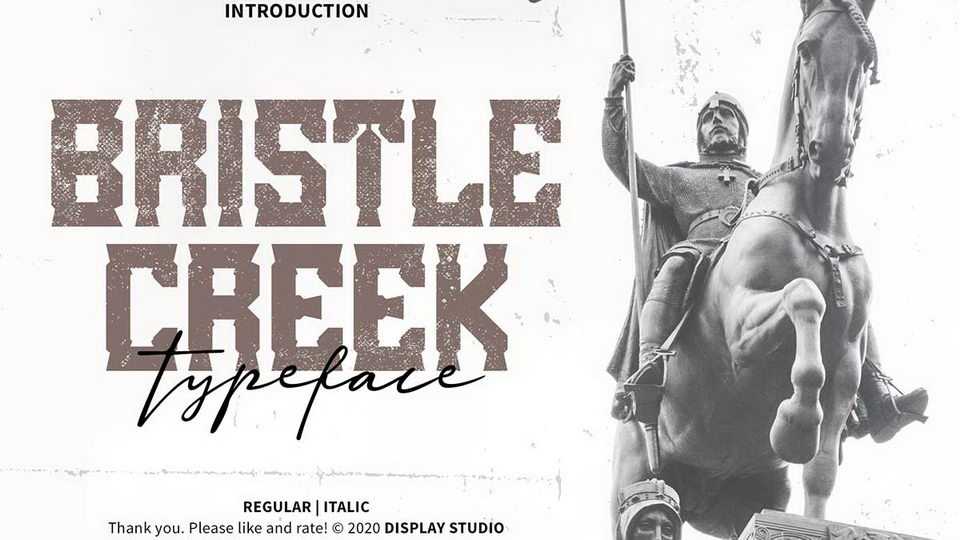
Download Bristle Creek font, a bold display typeface with a vintage feel. Bristle Creek is perfect for logo, posters, headlines and other projects.
Designer: Display Studio